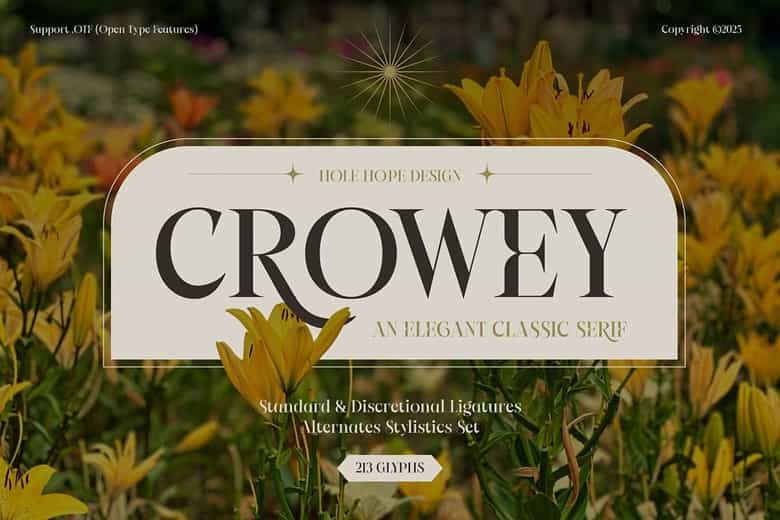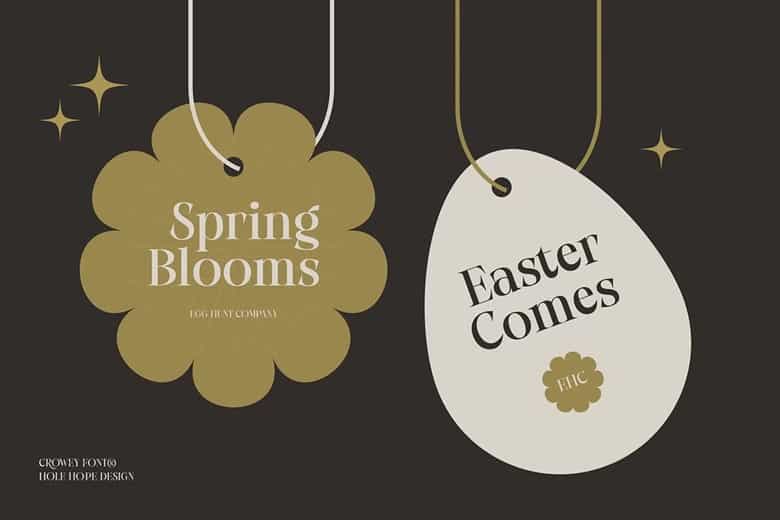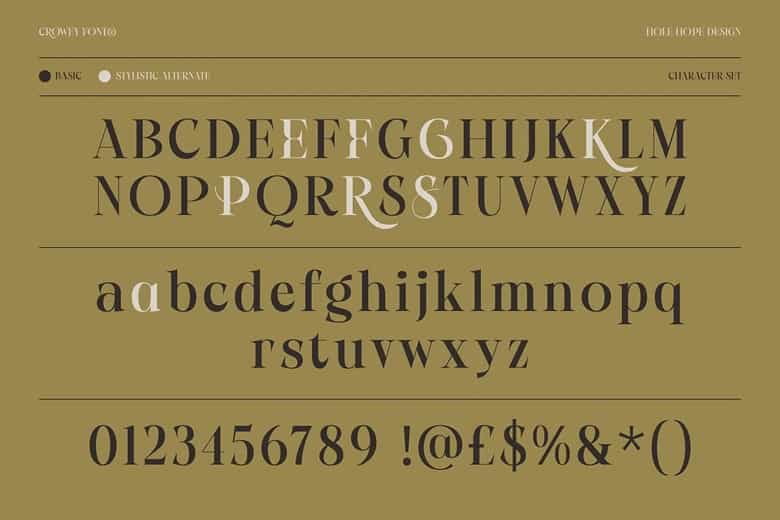
Crowey is a classic beauty that features both the sophistication of a serif font with some measure of charm. Created for the Easter Day, this font embodies the air of sophistication which will be perfect for the season of Easter, spring. It has fine and at the same time strong lines that make it look noble as a genuinely high-class typeface,